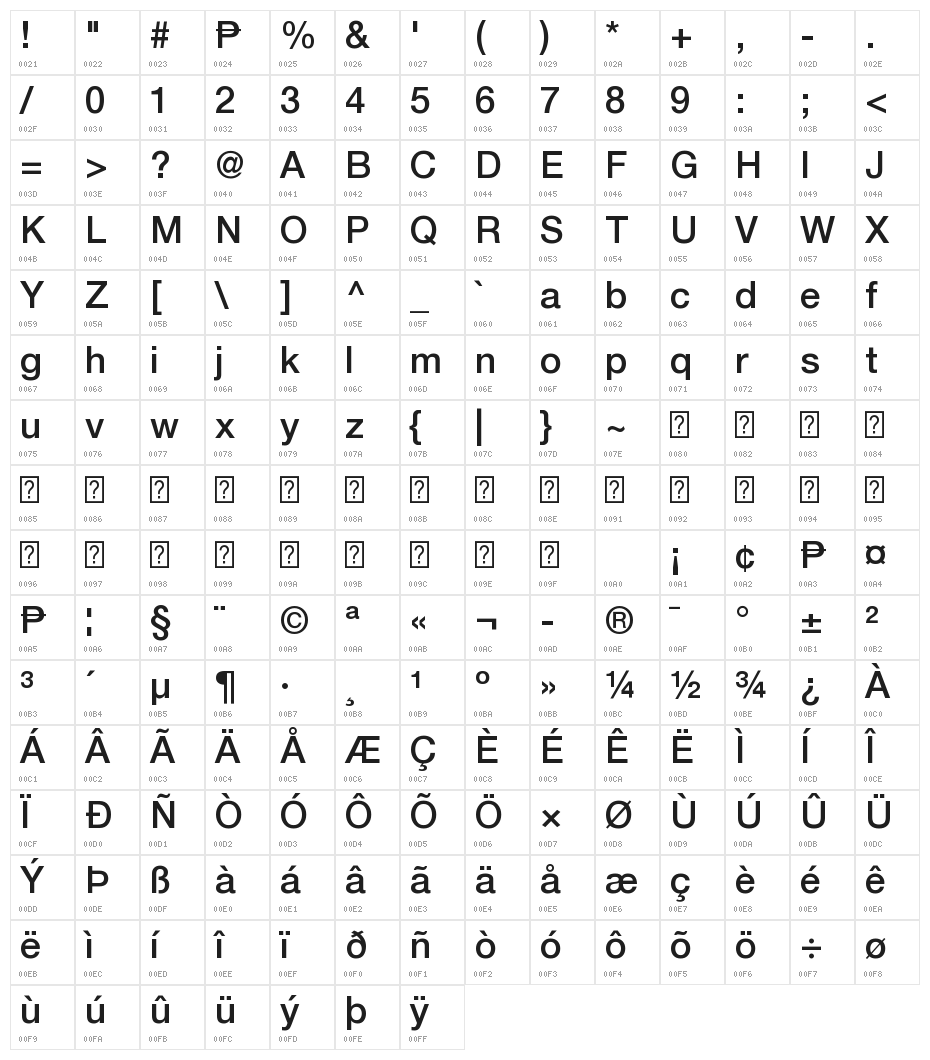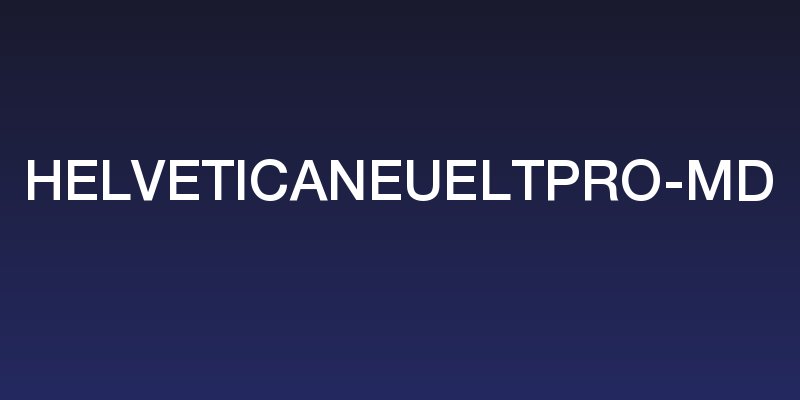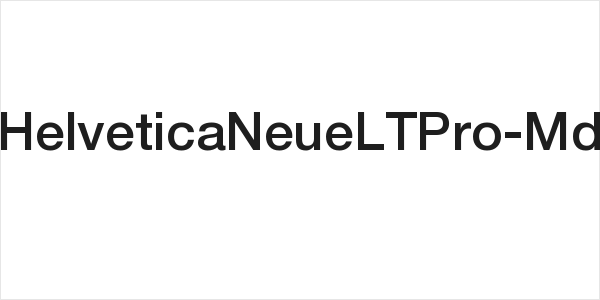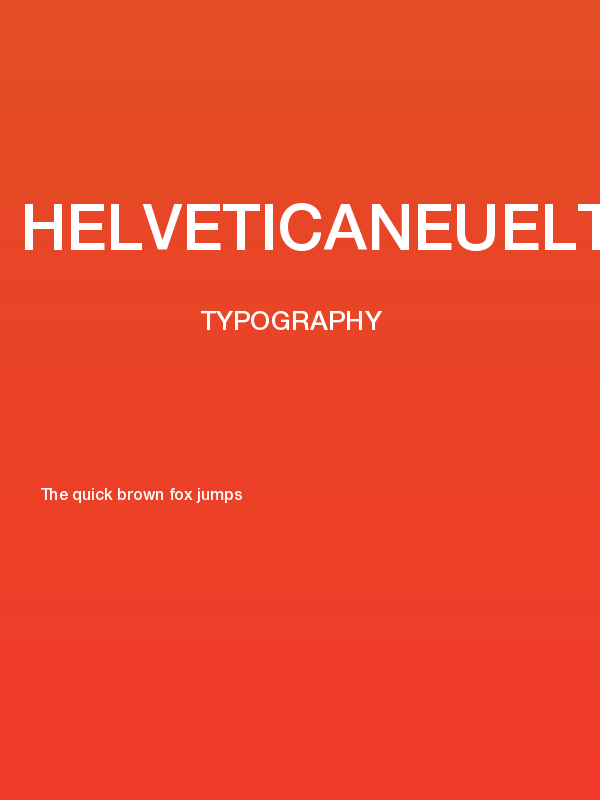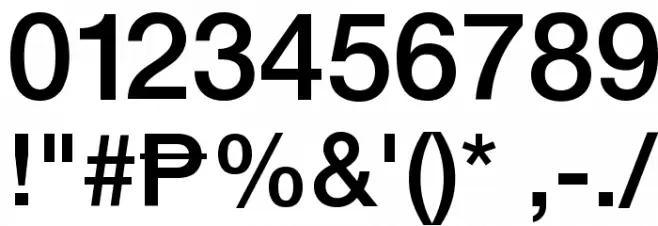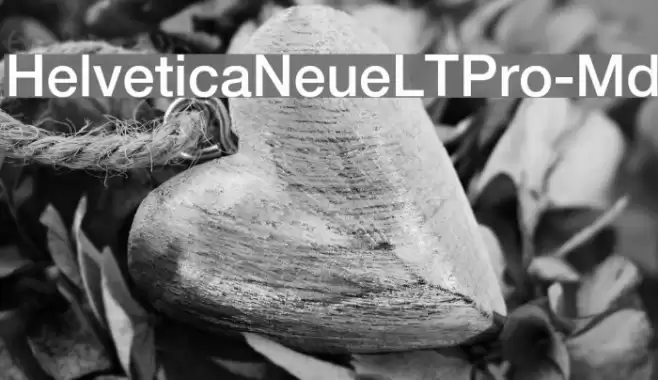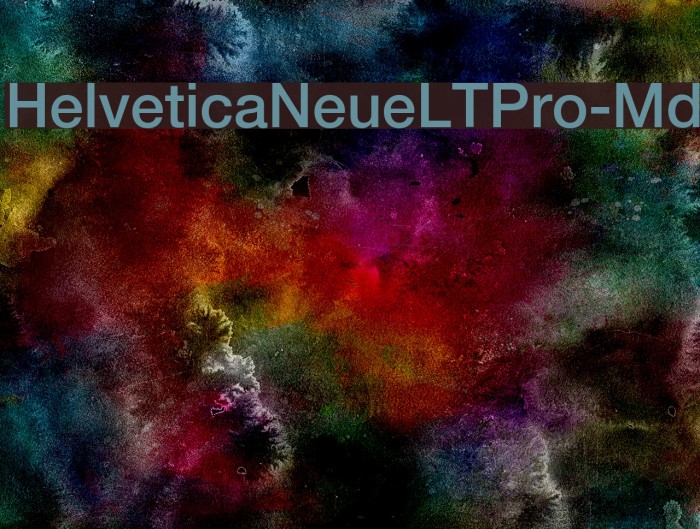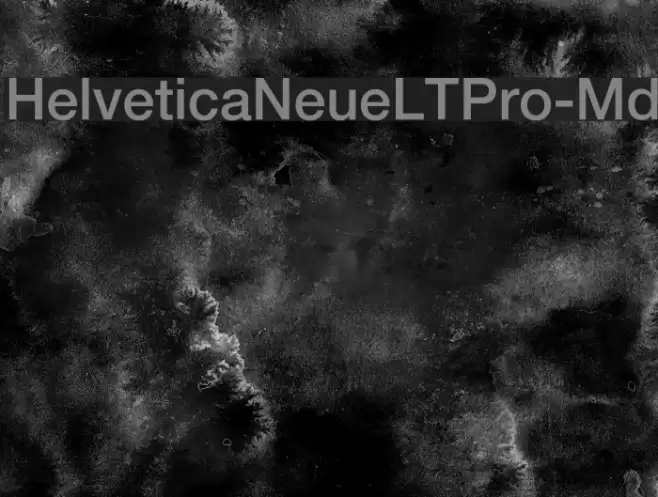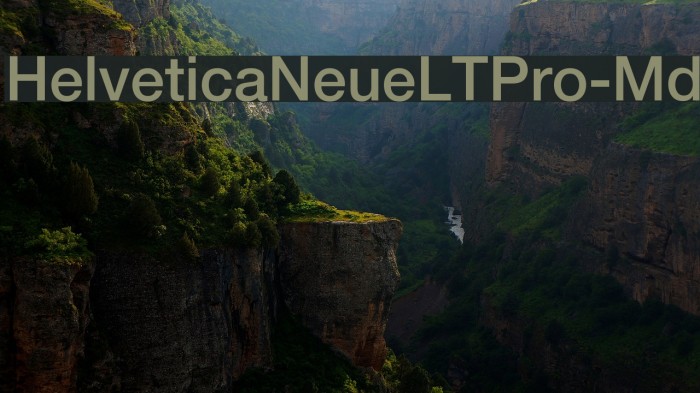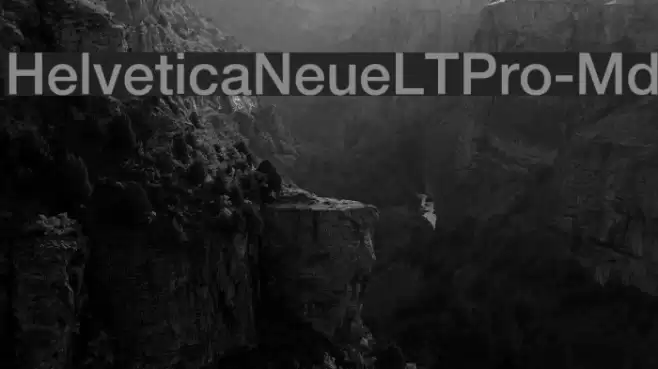
HelveticaNeueLTPro-Md Font
HelveticaNeueLTPro-Md Description
This font features a clean and modern sans-serif design, characterized by its simplicity and clarity. The letters are well-proportioned with a uniform stroke width, providing a balanced and harmonious appearance. The uppercase and lowercase characters are distinct yet complementary, with rounded edges that soften the overall look. The numerals are clear and legible, making them suitable for various applications. Special characters are included, maintaining the font's cohesive style. Its versatility makes it ideal for both digital and print media, ensuring readability across different sizes and formats.
| Use Case | Headlines, Body text, Logos |
| Proposed Projects | Ideal for branding, web design, corporate materials, and editorial layouts. |